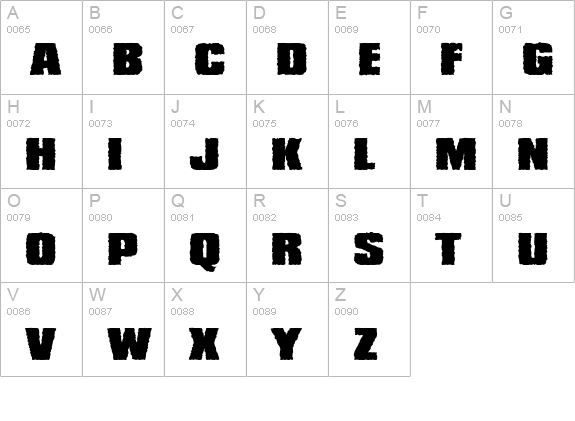
Grunge Kompak Black is a maximum-weight, dramatic variant in the Grunge typeface family \xE2\x80\x94 well suited to maximum-impact headlines, posters, and packaging.
Grunge Kompak Black font is a striking and edgy typeface that exudes a raw and rebellious energy. With its bold and rugged appearance, this font is perfect for adding a grunge-inspired touch to your designs. The uneven edges and distressed look give Grunge Kompak Black font a unique and authentic feel that sets it apart from traditional fonts. Best of all, Grunge Kompak Black font is available for free download at FontsMarket.com. Whether you're working on a poster, album cover, or any other creative project, this font will make a bold statement and add a touch of urban flair. Embrace the gritty aesthetic of Grunge Kompak Black font and let your designs stand out from the crowd.